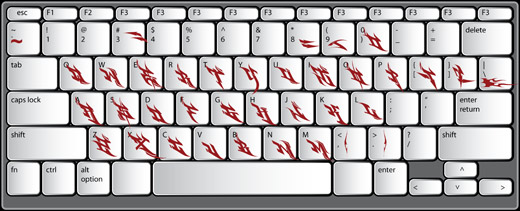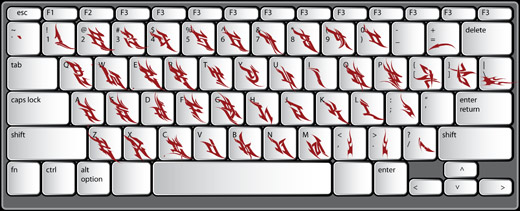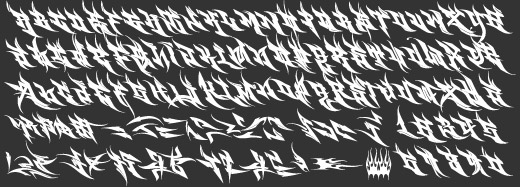
Burner Graffiti Font
Burner™
Burner™ is an advanced, connecting wildstyle graffiti font including over 200 unique letters, numbers & symbols. The family includes 5 styles: outlines, fills, details & more. Mix & match glyphs from 3 alphabets, add end pieces & more. Repeating flames, arrows & flourishes included.
Sample Piece created with Burner font Sample Graffiti created with Burner font
Alphabets, numbers & symbols from Burner typeface
Burner font capitol letters
Burner font lowercase letters
Burner font hidden glyphs
• Burner Regular (Fill)
• Burner Outline
• Burner Fade
• Burner Detail
3D graffiti letter sample from Burner fontThe Burner™ font includes 3 full alphabets, numbers & a wide array of arrows, bars & extra embelishments made to attach to the begining & end of each piece (word).
Like some of our earlier typefaces such as RaseOne™ or WildStyle™. The Burner™ font family is made to work as a team. In nearly any application 2 or more styles can be easily layered to create advanced, multicolor wildstyle pieces. These extra styles provide effects that can't be achieved manually without a ton of tedious work.
Sample Art showing the 4 styles of the Burner font family
The characters/glyphs were all drawn by hand however this font is 100% digitally rendered. The paths are very clean & free of overshoots & stray points. Burner™ is one of the most advanced Graffiti Fonts ever. It's fairly legible but it's not for reading, it's for making pieces.